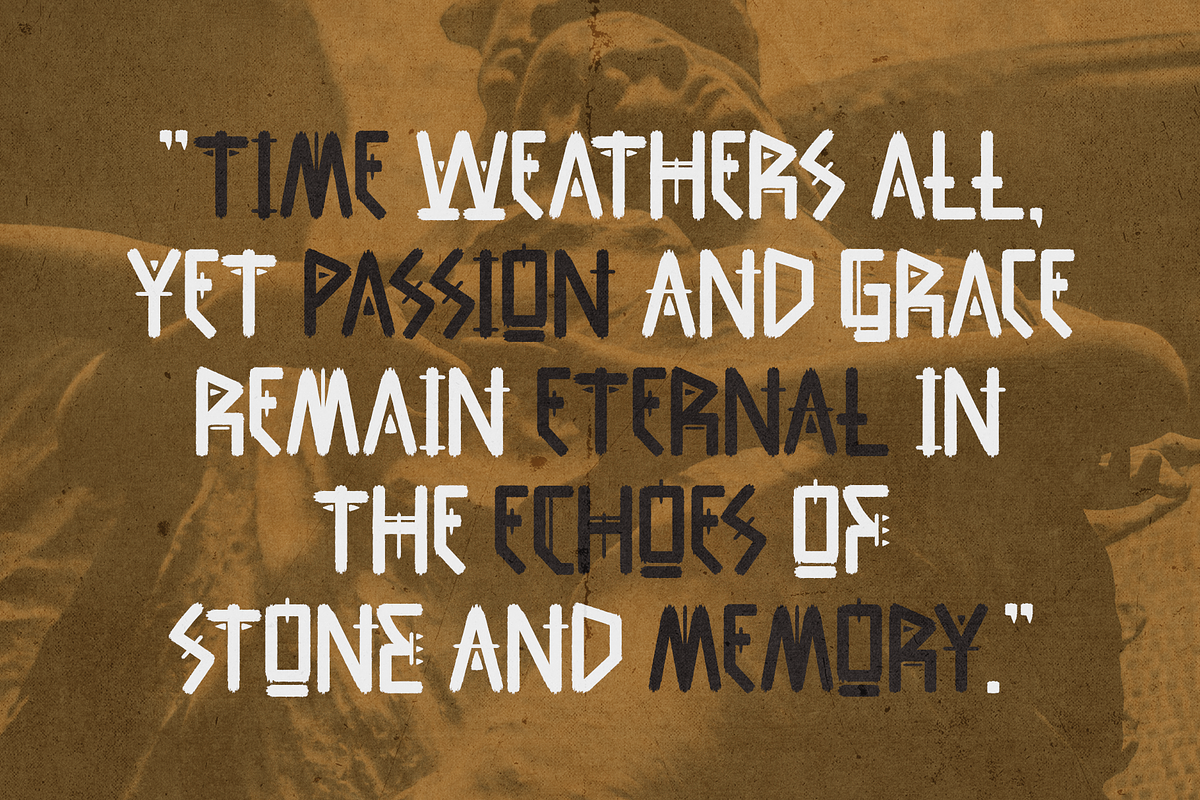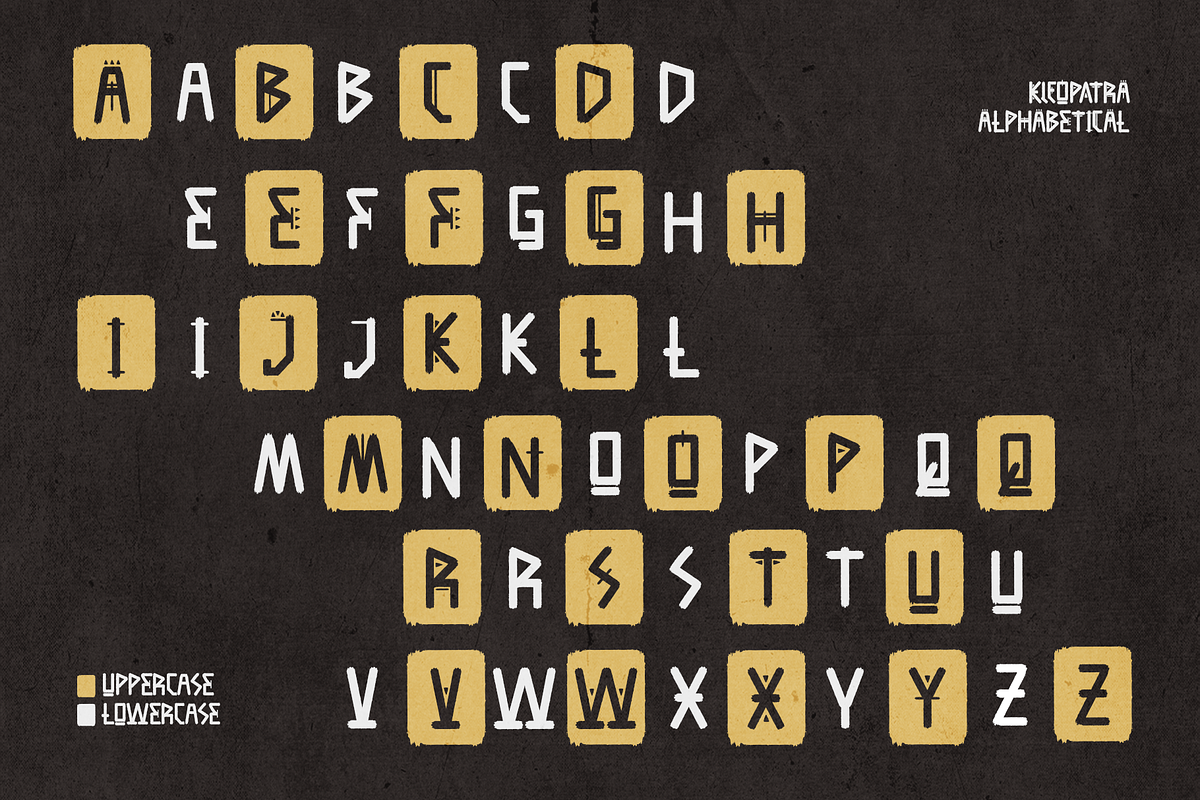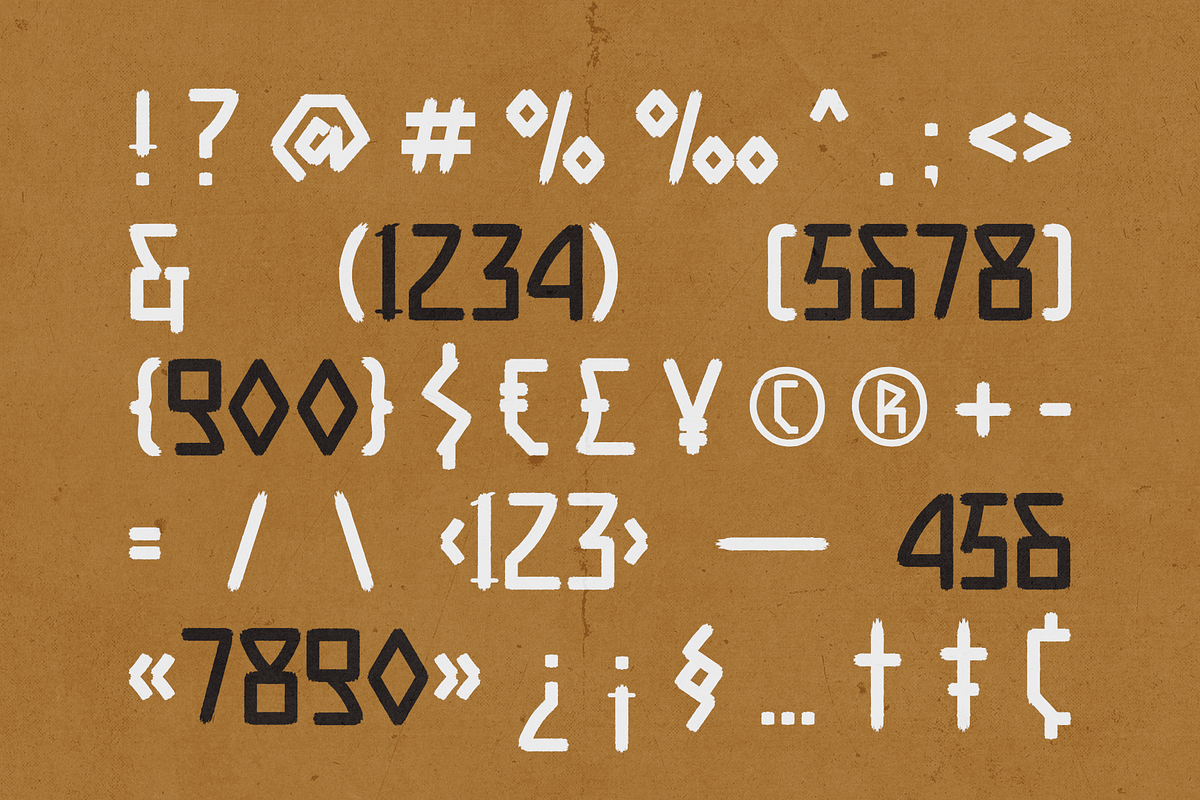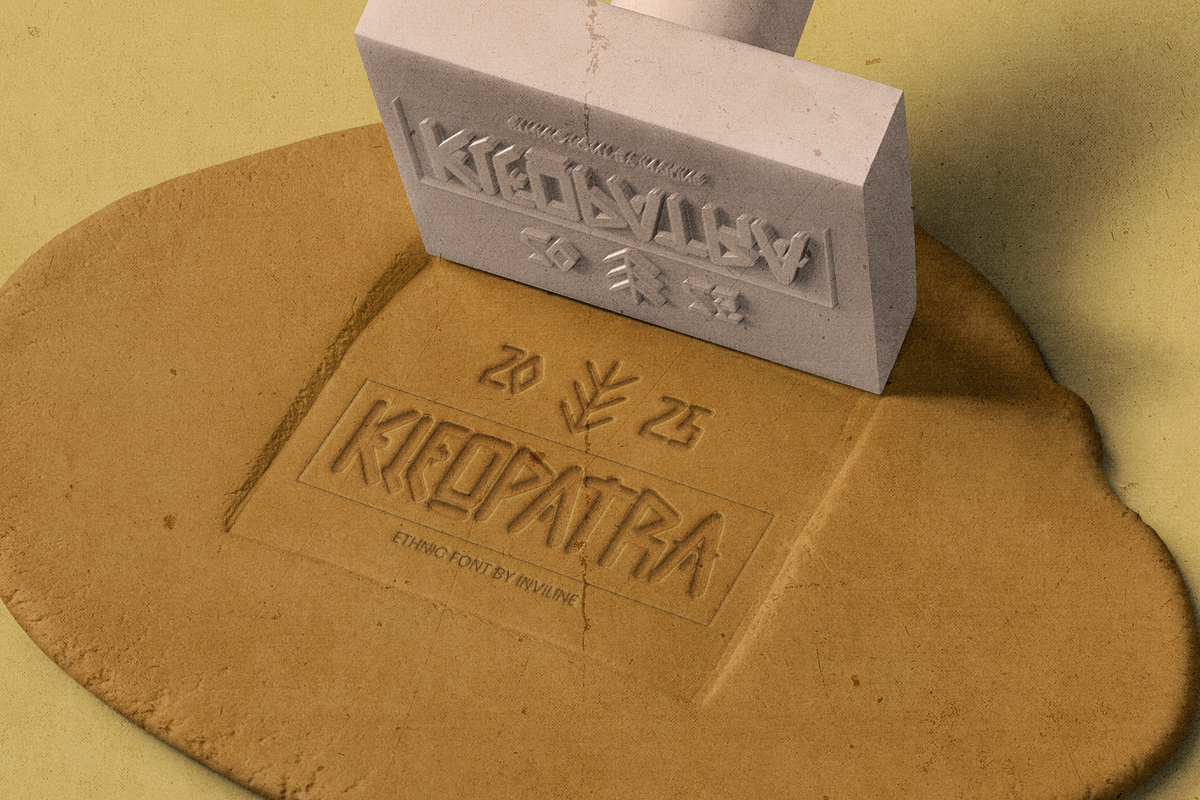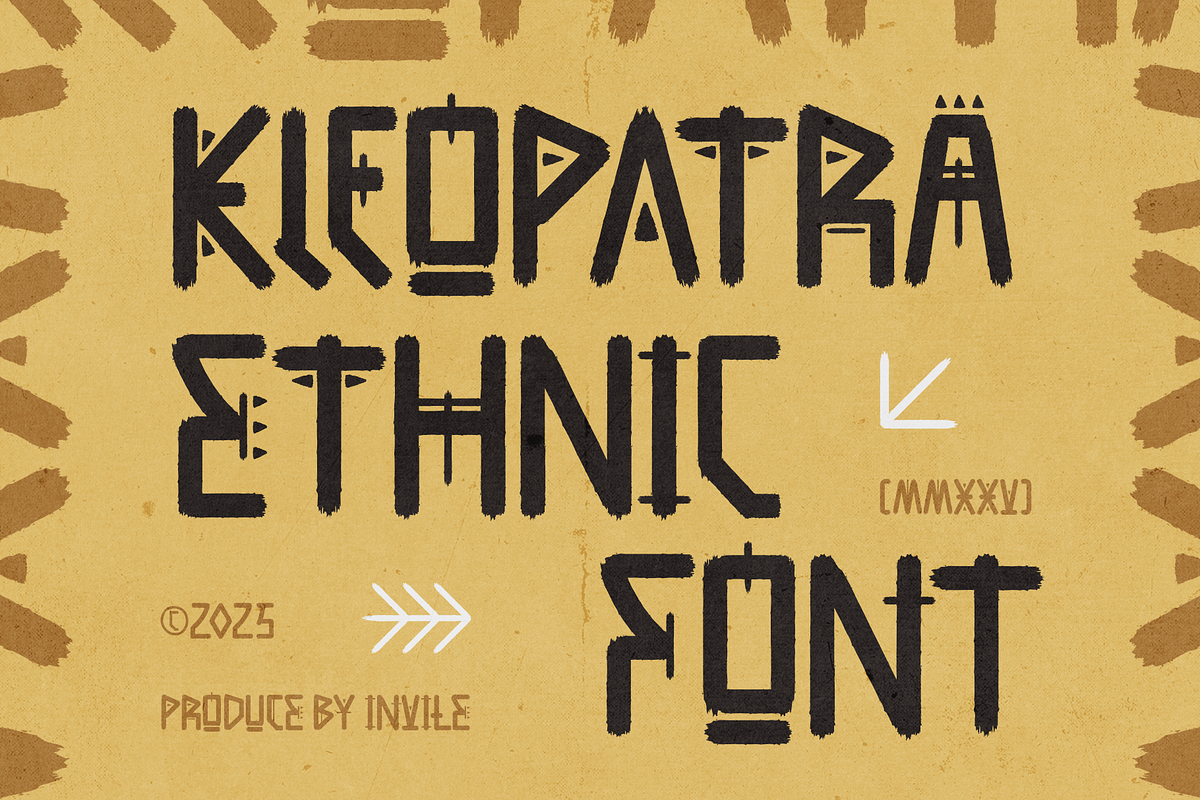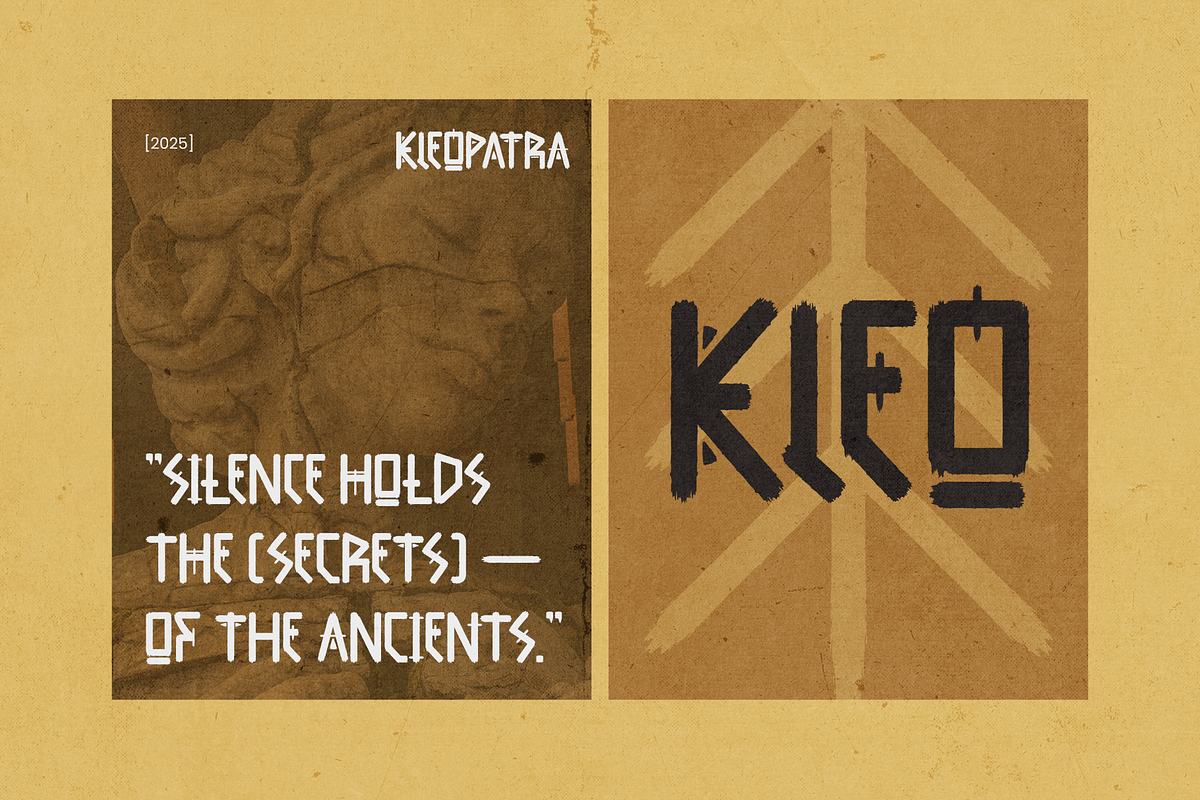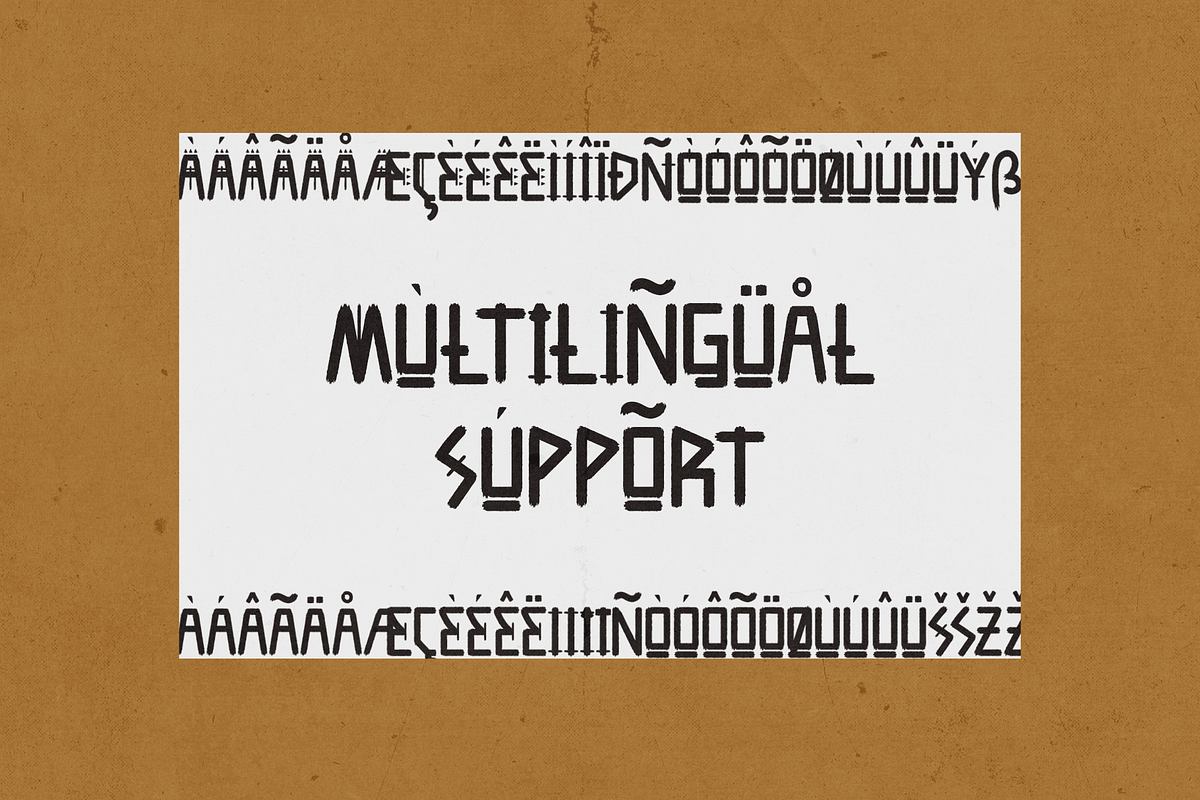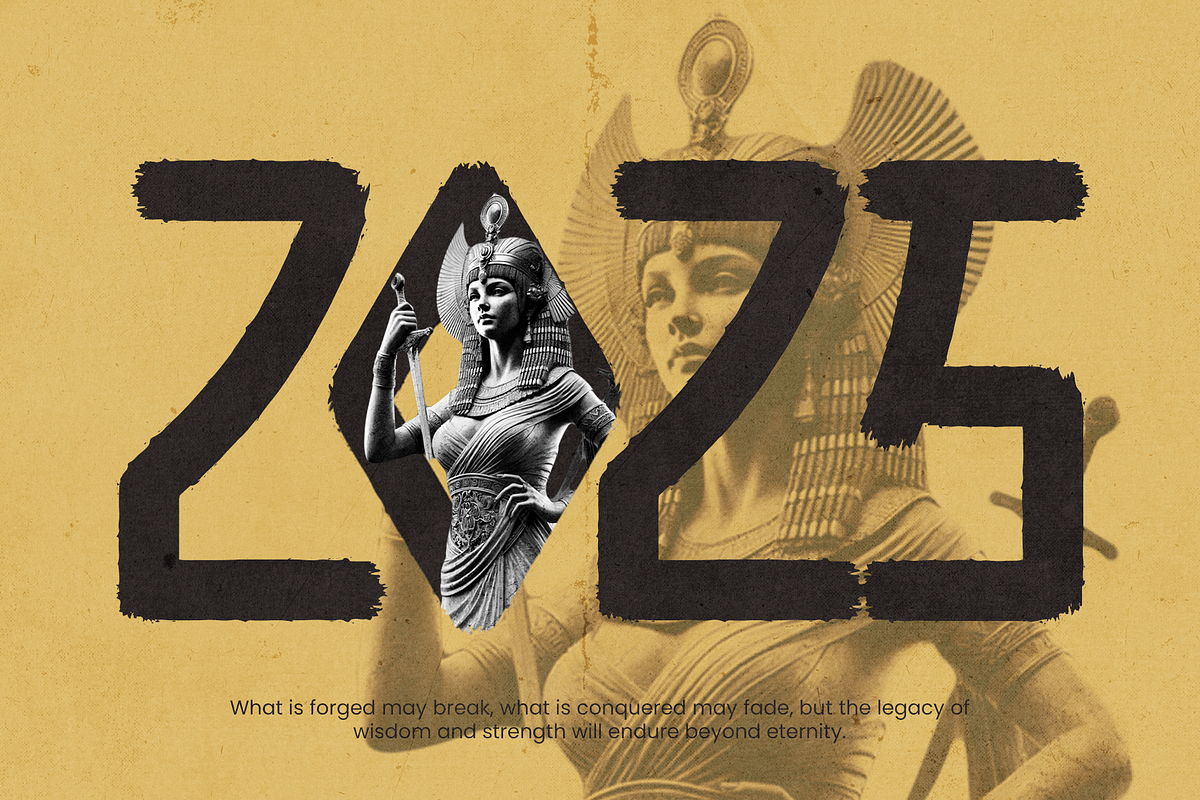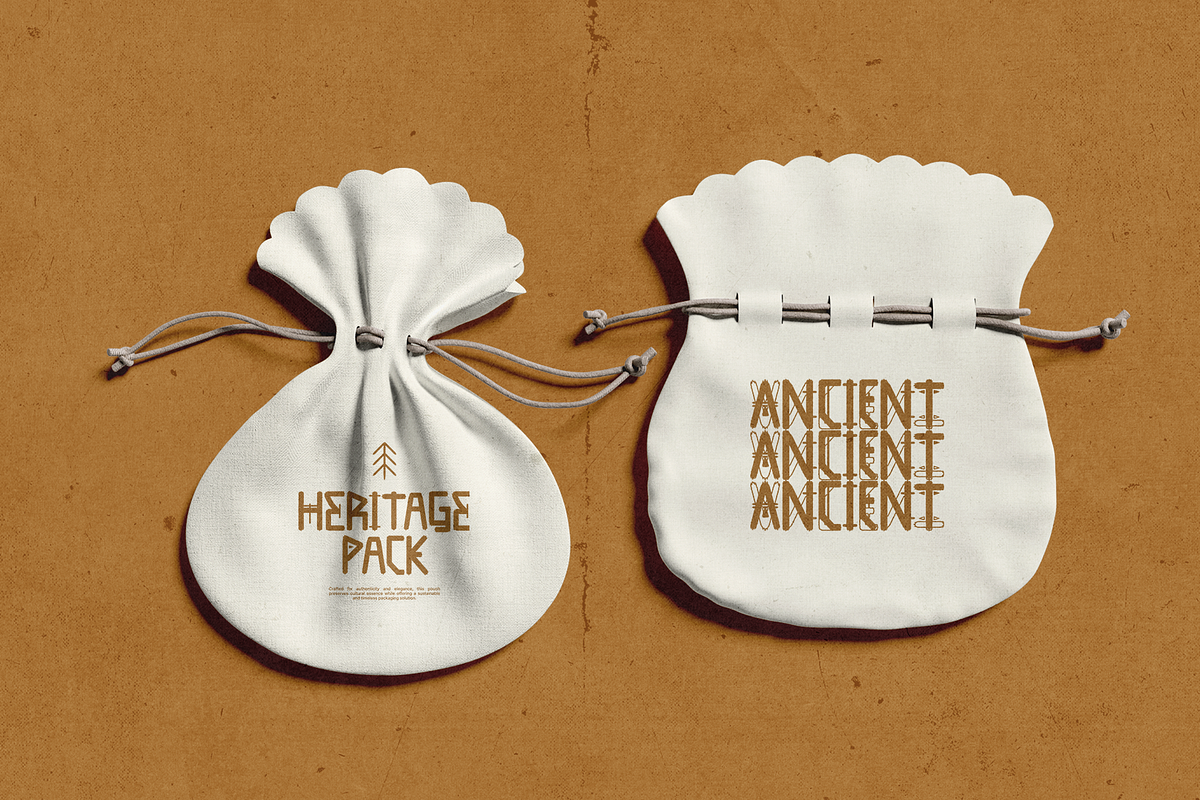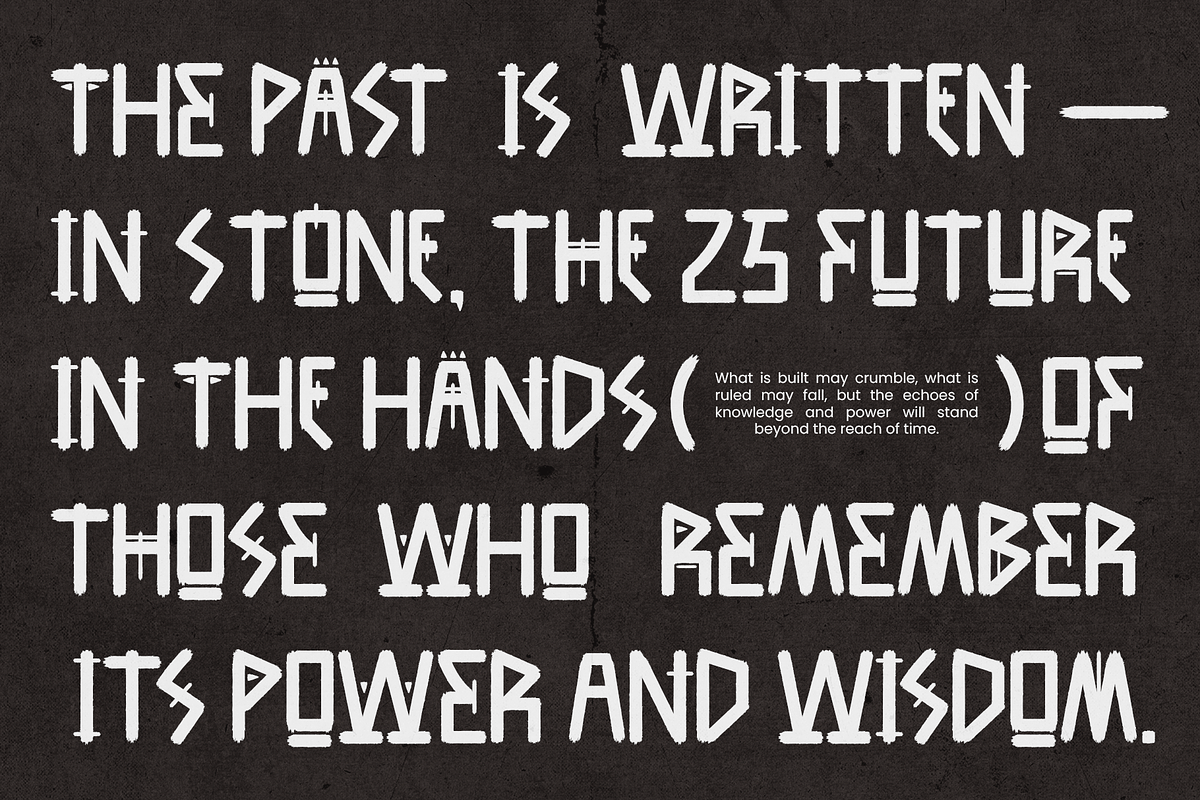
Kleopatra – Brush Ethnic Geometric
Kleopatra – Ethnic Display Font
Kleopatra is a bold ethnic display font inspired by ancient tribal patterns and handcrafted aesthetics. With its strong, exotic character, this font brings a distinct cultural flair to any creative project.
- All-uppercase letters with tribal style
- Handmade strokes and ornamental forms
- Suitable for Latin-based languages
Recommended Uses
- Product branding for organic or cultural goods
- Posters for tribal music festivals or cultural events
- Packaging labels for artisanal or handmade products
- Book covers and editorial layouts with historical or ethnic themes
- Social media graphics, apparel, or merchandise design